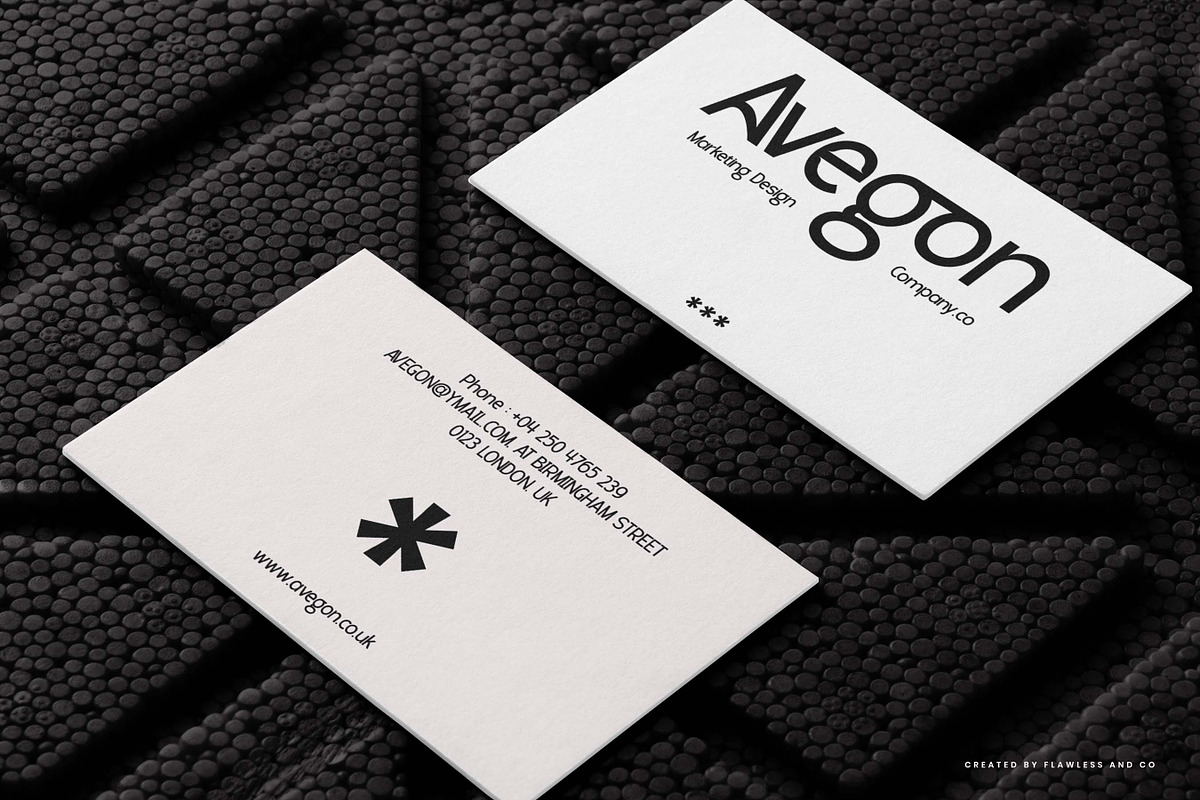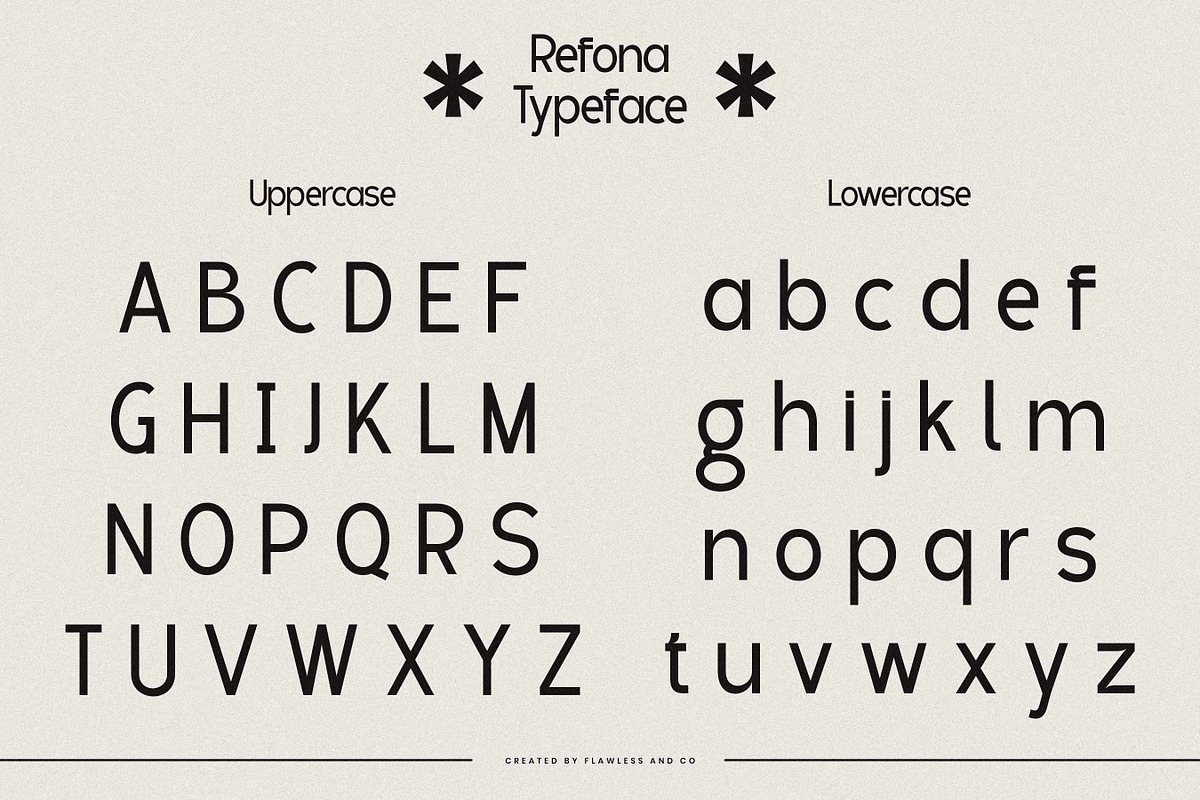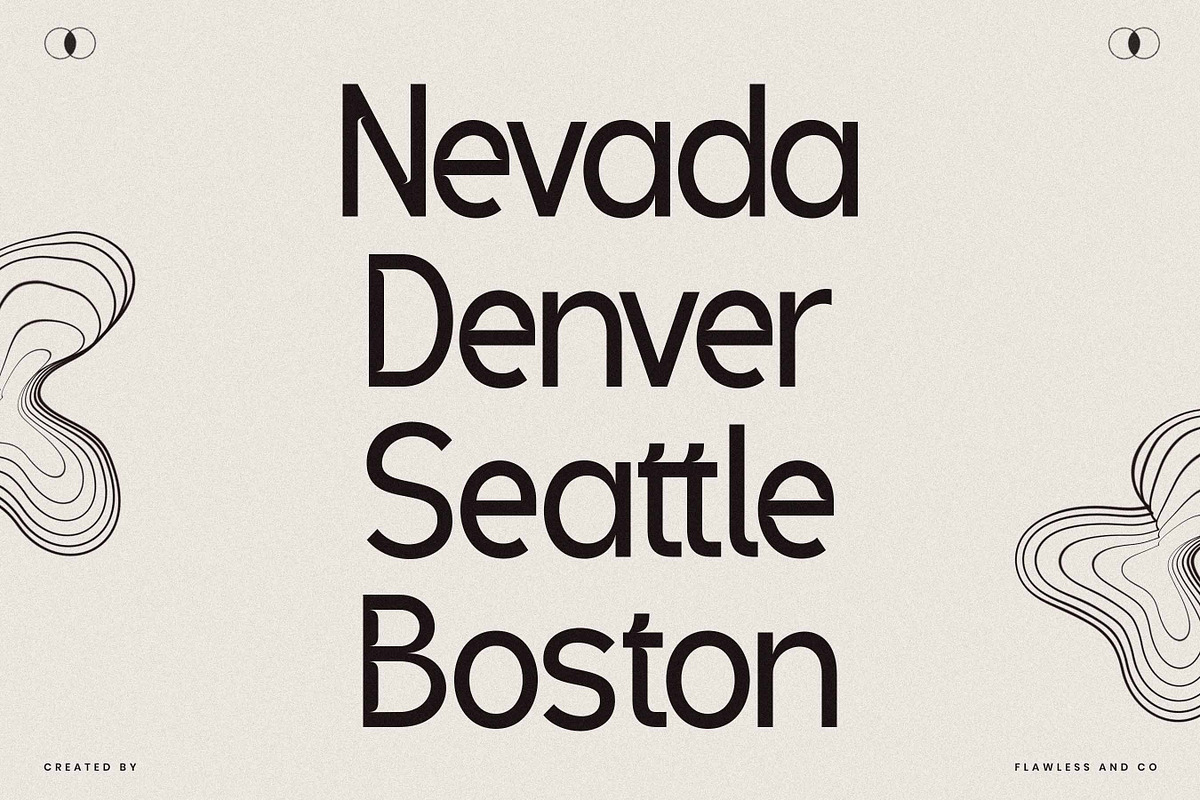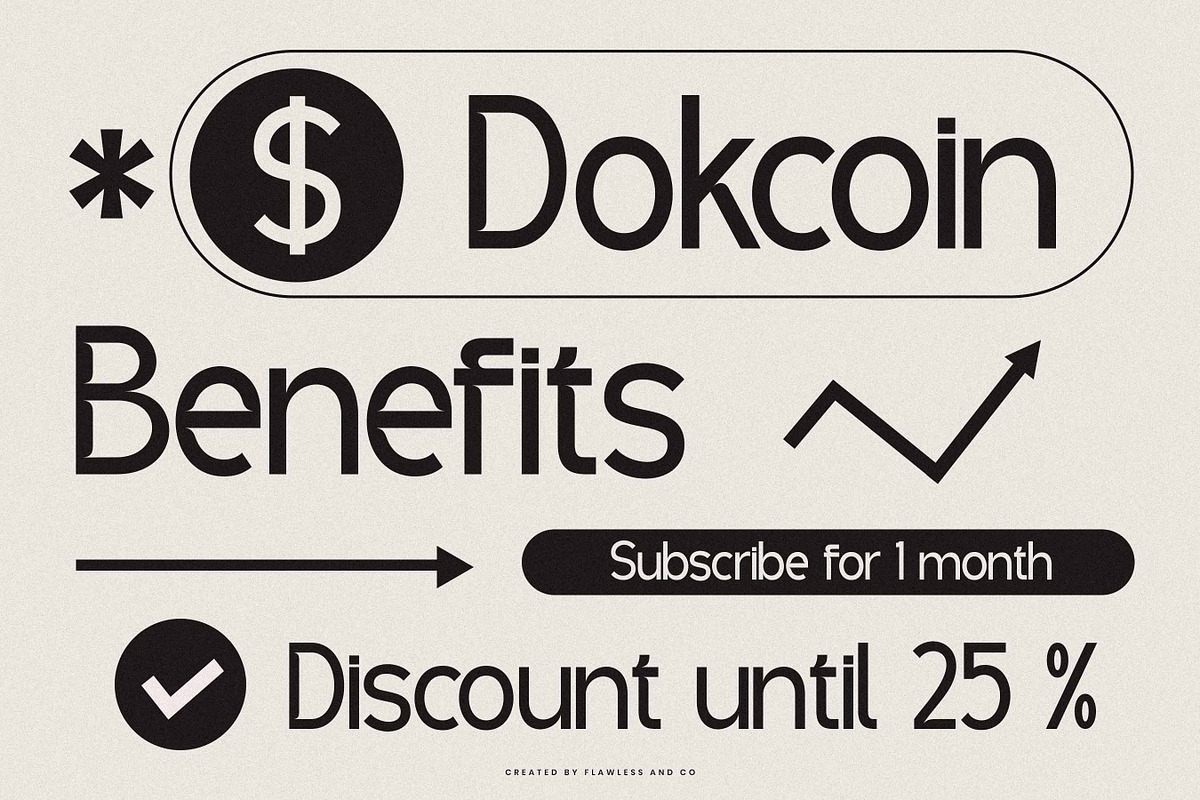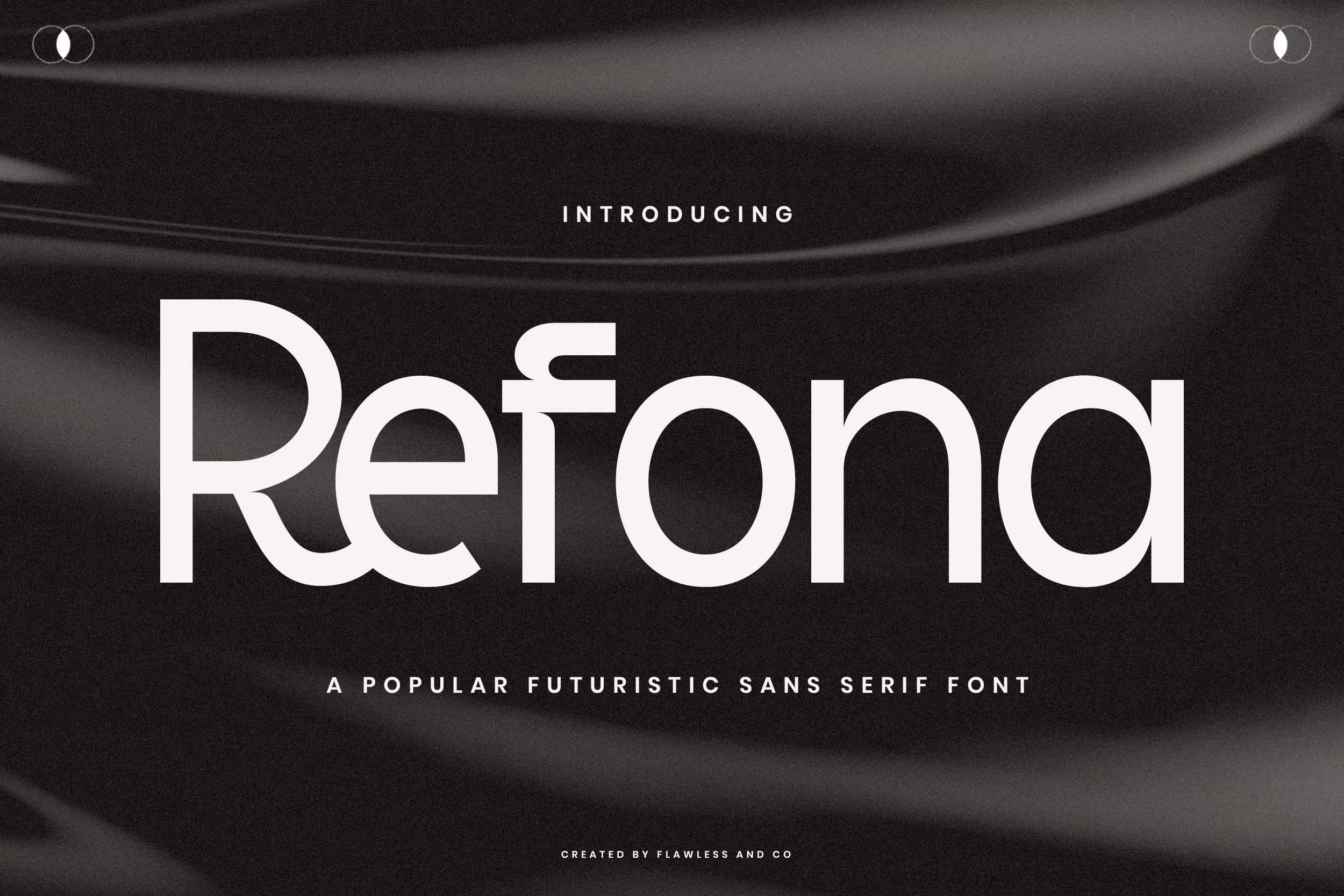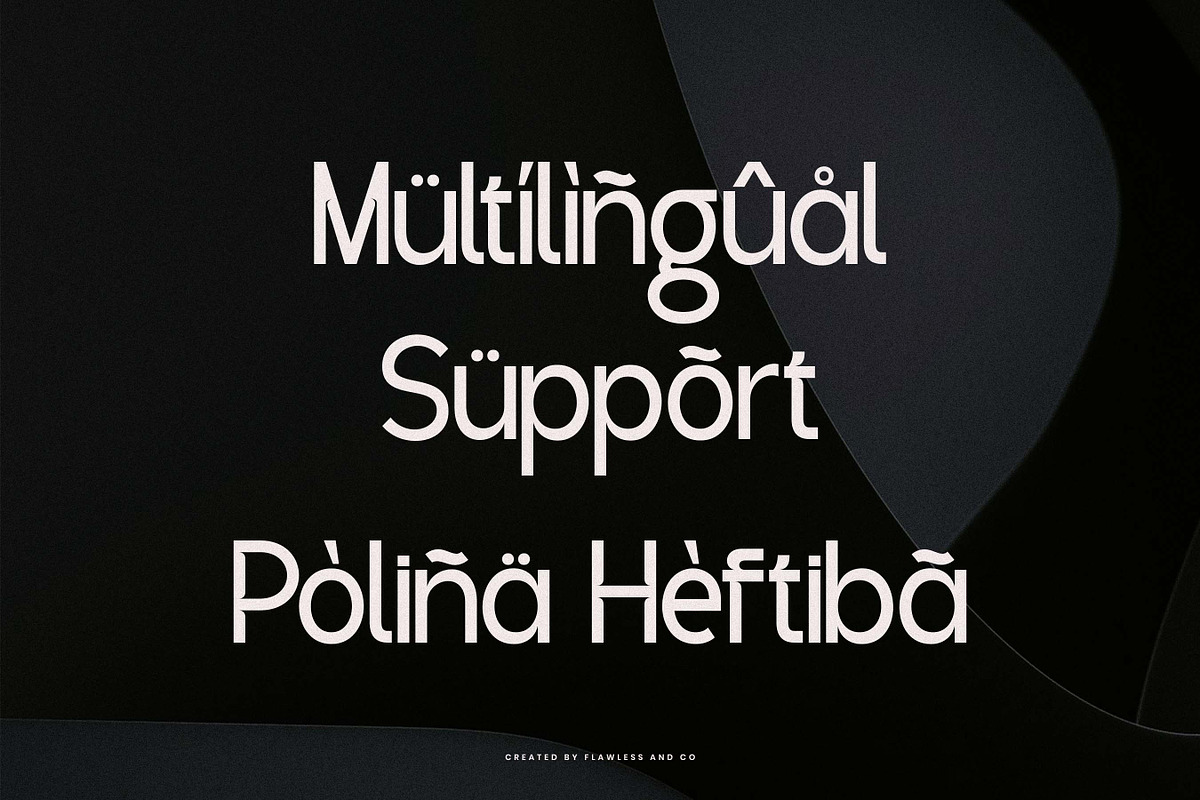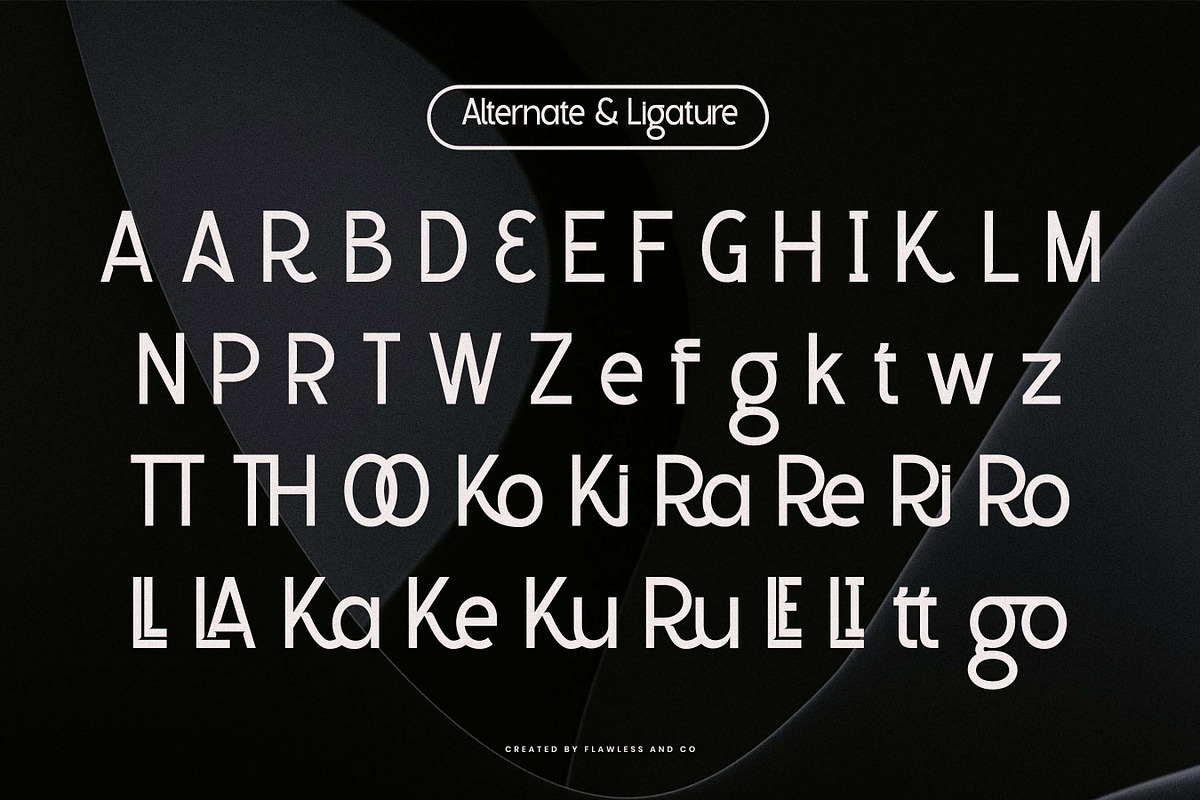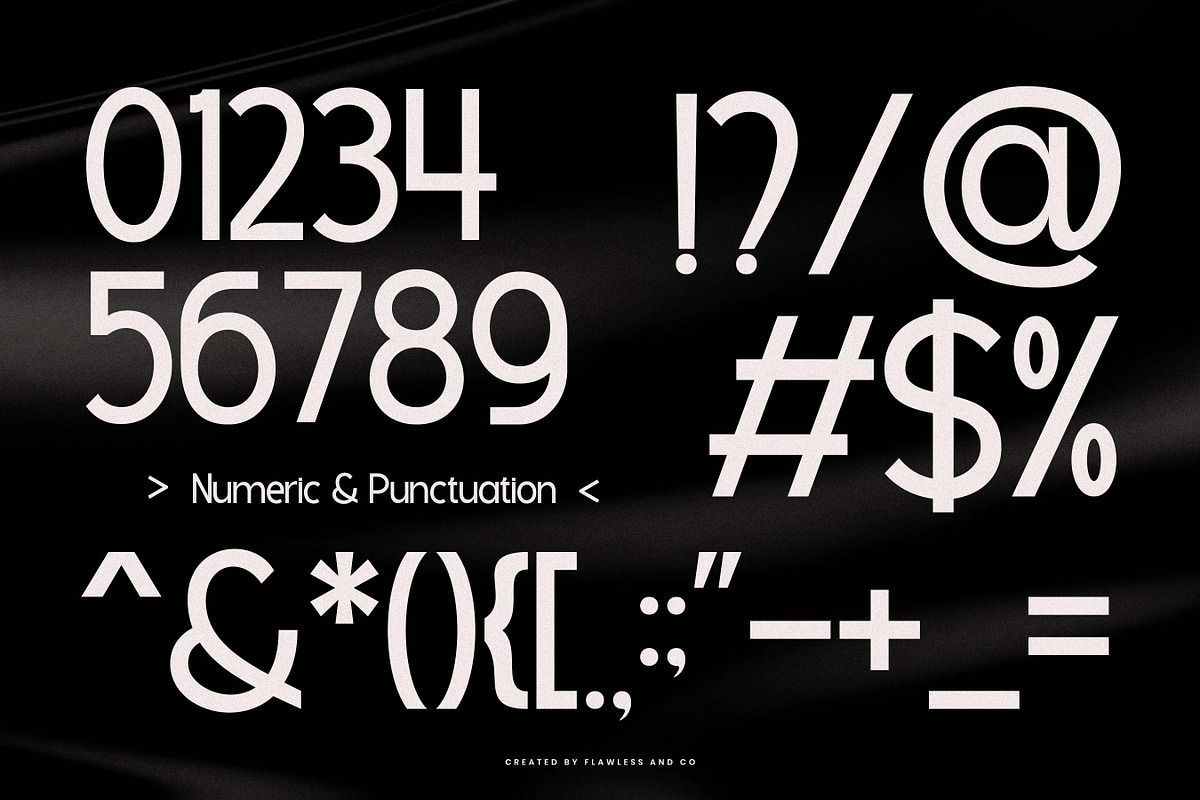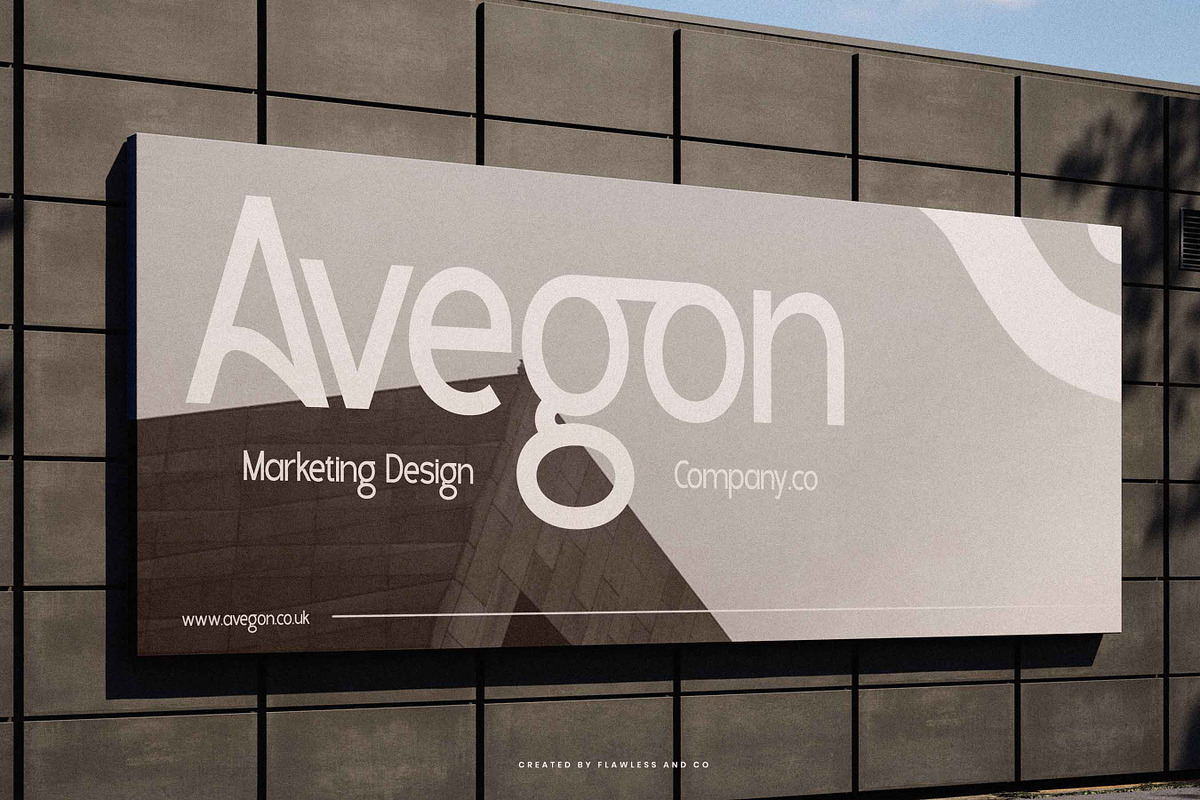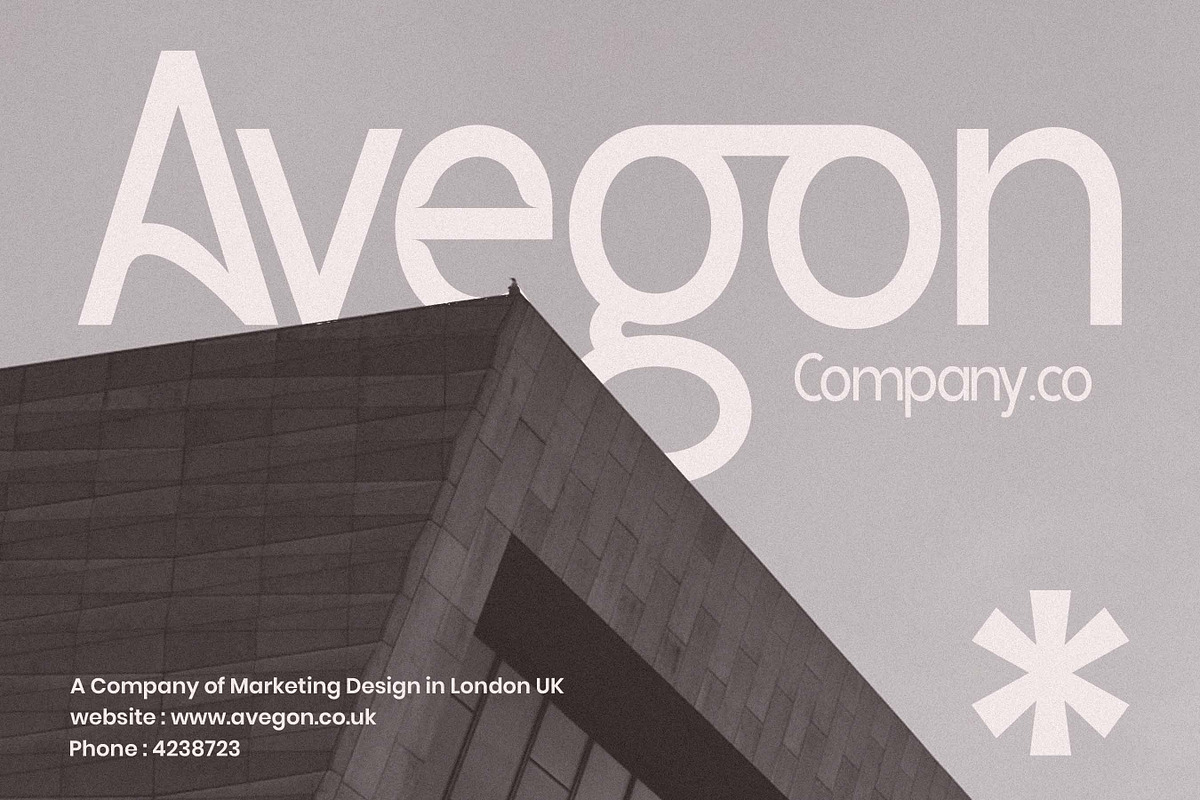
Refona - Futuristic Sans Serif Font
Refona – Futuristic Sans Serif Font
Refona is a futuristic sans serif font that blends clean lines with a forward-thinking aesthetic. With its modern simplicity and sleek geometric forms, Refona offers a bold, minimal look that's perfect for tech-savvy branding and contemporary visual design. Designed to deliver clarity and style, Refona works beautifully across digital platforms, print materials, and product packaging. Its smooth letterforms and sharp edges give your typography a refined futuristic feel—ideal for logos, headlines, posters, and UI design. Whether you're building a tech brand, launching a digital product, or crafting high-impact visuals, Refona brings precision and modernity to every project. Features:
- Multilingual Support Refona is your go-to font for creating clean, confident, and future-ready design. Let it power your next bold idea.
Who Should Use Refona? Refona is designed for creatives, brands, and designers who want to communicate innovation, clarity, and modern sophistication through typography. This font is perfect for:
- Tech startups & SaaS companies building sleek, futuristic brand identities
- Designers creating logos that need a clean, forward-looking aesthetic
- UI/UX professionals seeking modern, legible typography for digital interfaces
- Futuristic product packaging that requires minimalism with impact
- Corporate branding teams aiming for a bold, modern tone across print and digital
- Media & digital creatives working on sci-fi, tech, or trend-forward content If your project demands clean lines, sharp structure, and a future-ready voice—Refona is made for you.
A Must-Have Font for Brand and Logo Creators and Designers Refona is a must-have typeface for designers looking to craft sleek, modern brand visuals with a futuristic edge. Its clean, geometric structure and versatile style make it the perfect foundation for impactful logo design and brand identity systems. Whether you're designing for a tech company, digital product, or cutting-edge creative studio, Refona provides the clarity and confidence your typography needs. With its balanced forms and minimalist vibe, it adapts effortlessly across platforms—from web and app interfaces to print collateral and packaging. Refona helps you create logos that feel smart, current, and ready for the future.
Why Choose Refona for Brand and Logo Projects?
Refona delivers a modern, streamlined look that’s perfectly suited for bold and future-forward branding. Here’s why Refona is the right choice:
- Minimal & Modern Design Refona’s clean structure and precise geometry make it ideal for logos that need a sleek and professional appearance.
- Futuristic Yet Timeless It blends forward-looking aesthetics with versatile simplicity—perfect for brands that want to stay relevant over time
- Flexible for Multiple Industries From tech and digital products to fashion, apps, and creative agencies, Refona adapts to a wide range of brand voices.
- Optimized for Clarity Every character is crafted to ensure maximum legibility across digital and print mediums—crucial for logos and brand systems.
- Built for Customization With alternates and ligatures, you can build logos and wordmarks that feel tailored and unique. If you're building a modern brand that values clarity, innovation, and visual impact—Refona is the font that delivers.